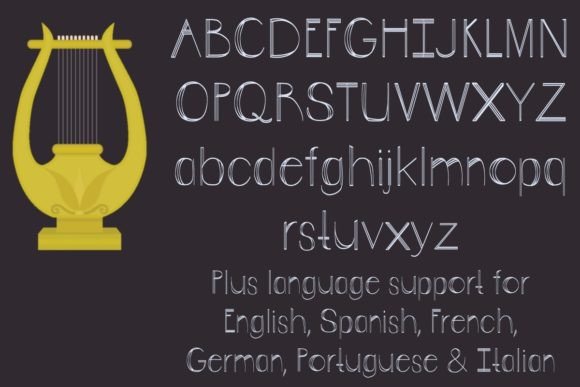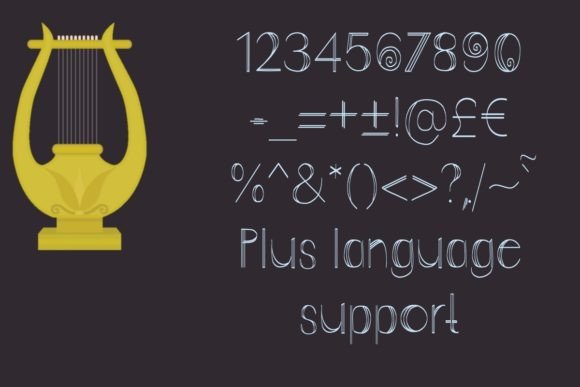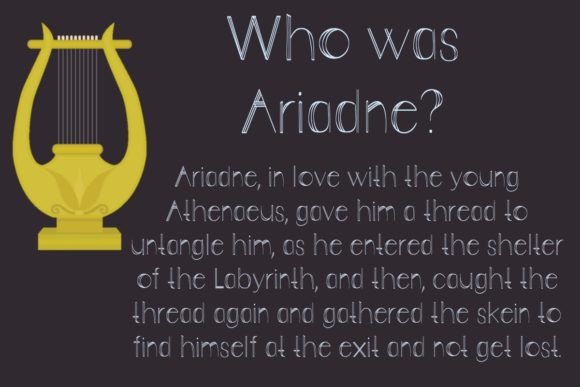
Introduction to Ariadne Font
Ariadne is an incredibly unique display font.
Masterfully designed to become a true favorite, this font has the potential to bring each of your creative ideas to the highest level .
Key Features of Ariadne Font
Why Choose Ariadne Font?
Ariadne Font offers exceptional quality and versatility, making it a valuable addition to your design toolkit. Whether you’re creating for personal projects or commercial use, Ariadne Font delivers professional results.